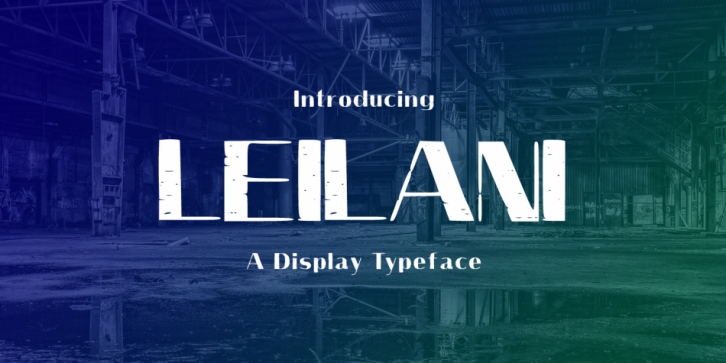
Designed by Md. Shohail Bhuiyan, Leilani is a display sans font published by Seemly Fonts.
Introducing Leilani!
Leilani is a modern font. Leilani is perfectly suited to stationery, logos, t-shirt, paper, print design, website header, photo frame, flyer, music cover, poster, image slider and much more.